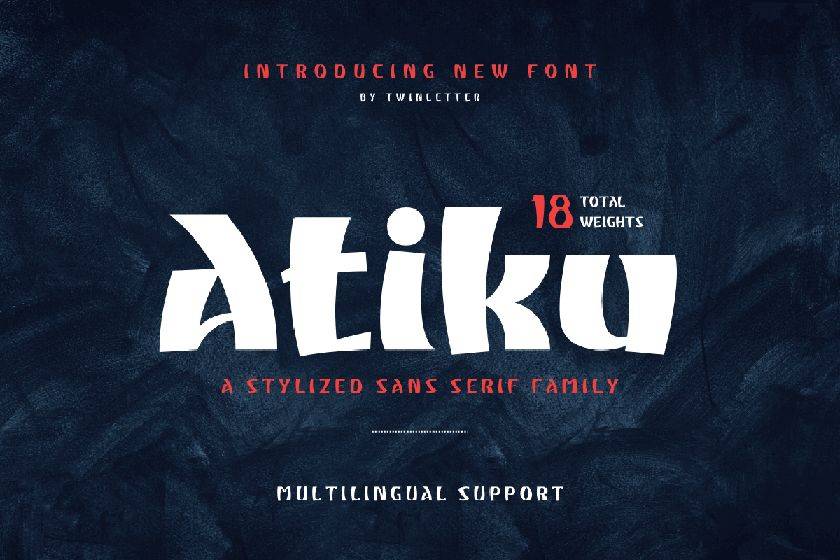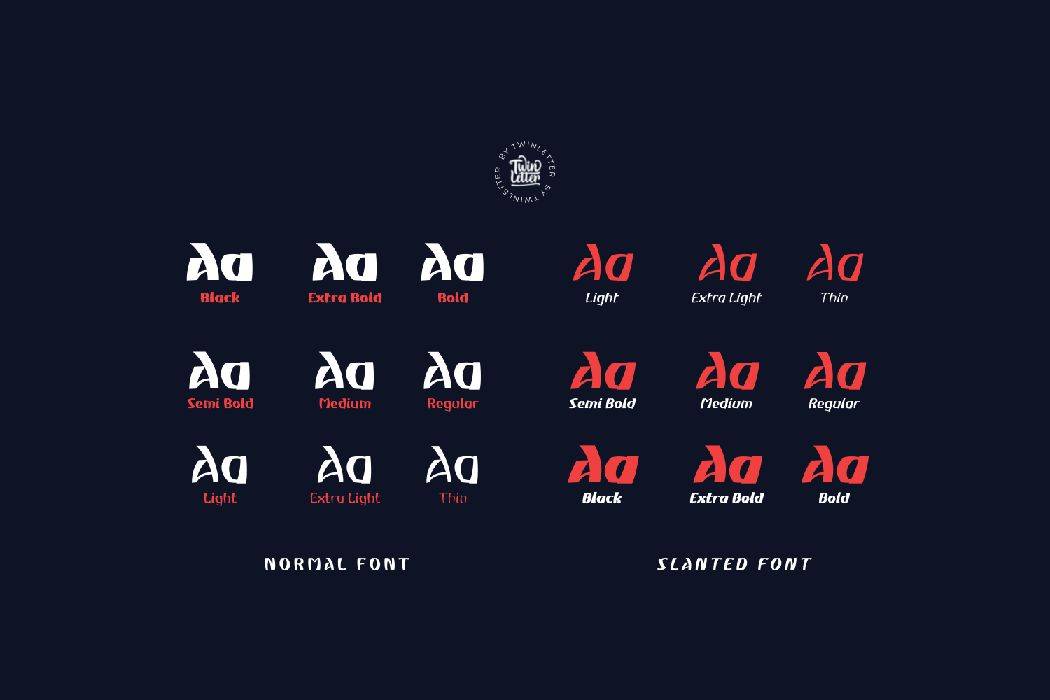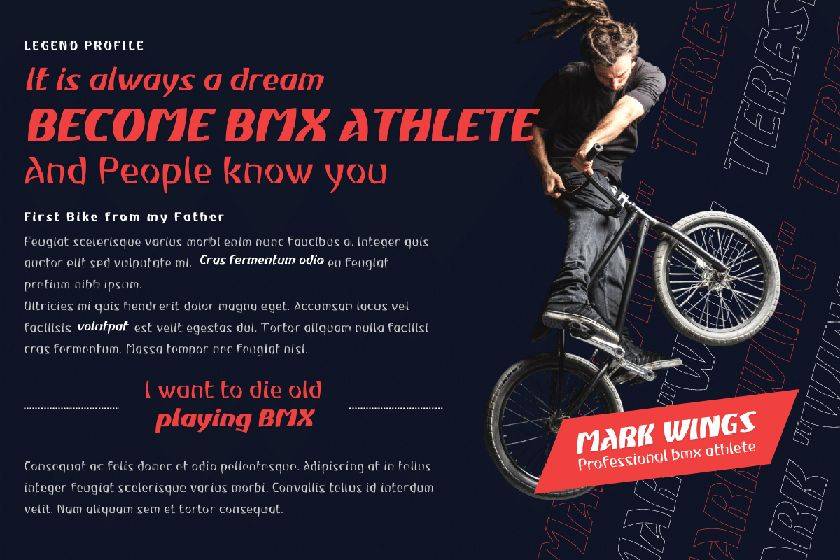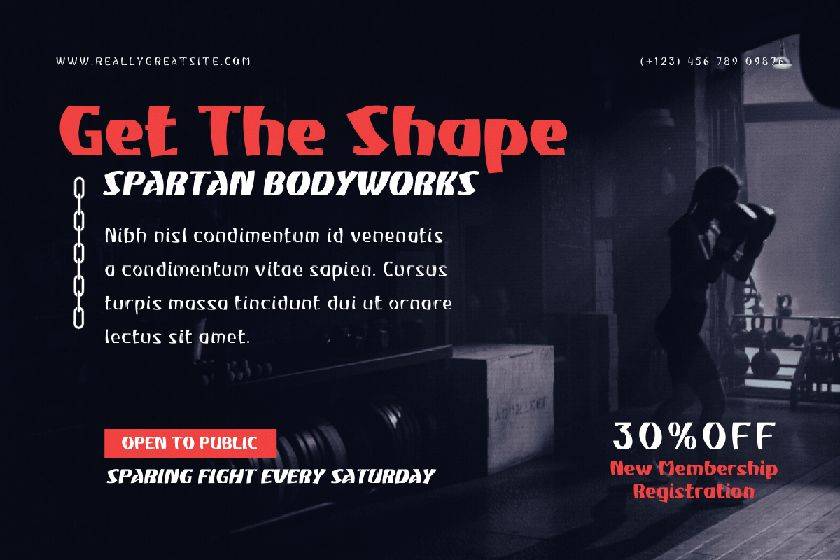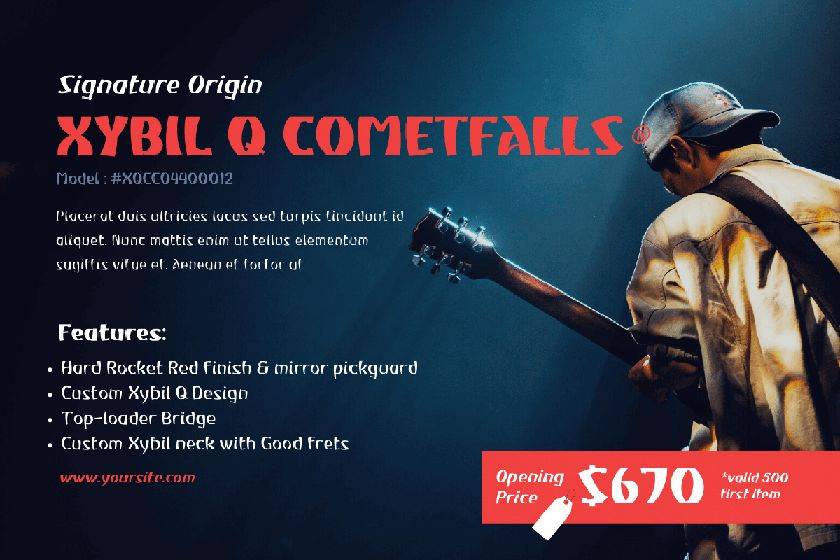
Atiku is a bold, playful sans serif font with a slightly condensed width and moderate contrast in its thick strokes, giving it a strong and dynamic presence. Its quirky, irregular letter shapes and unique character details add a fun and informal personality, making it ideal for eye-catching headlines, posters, or branding that wants to feel approachable yet distinctive. This font works best in creative and casual contexts where a lively and memorable style is desired.
Atiku Font